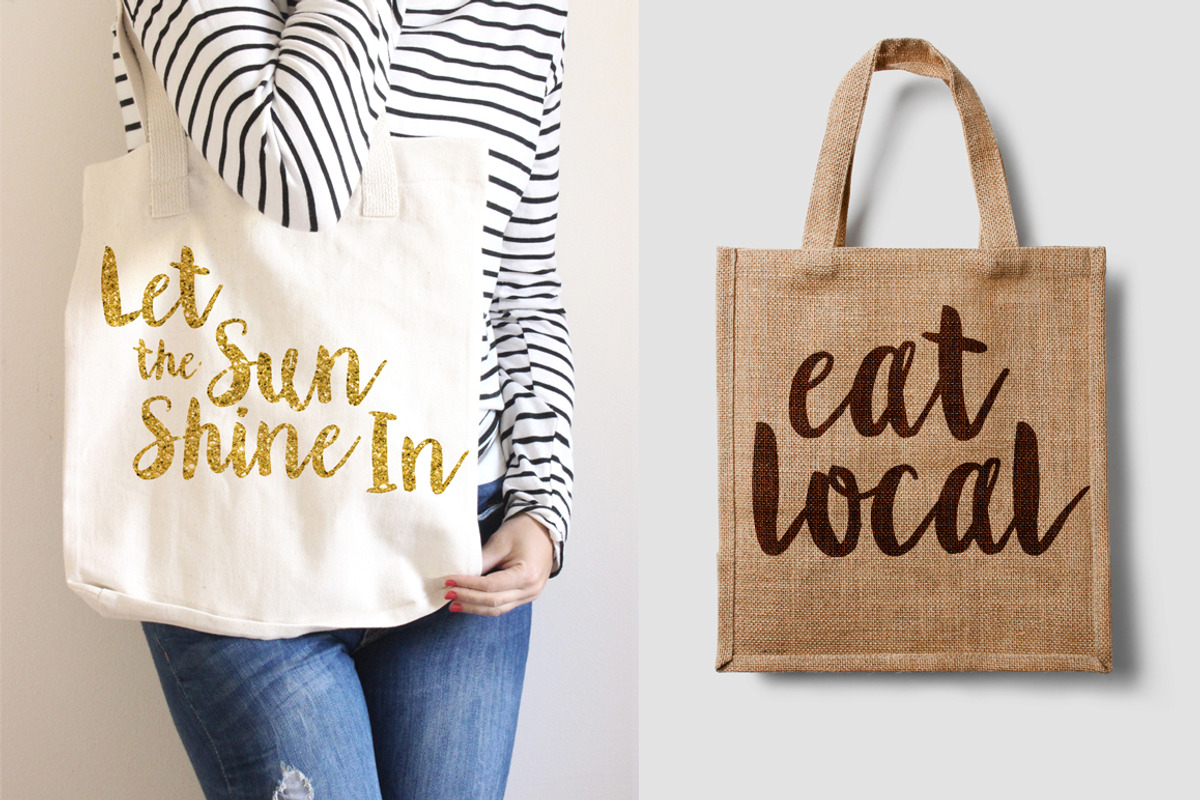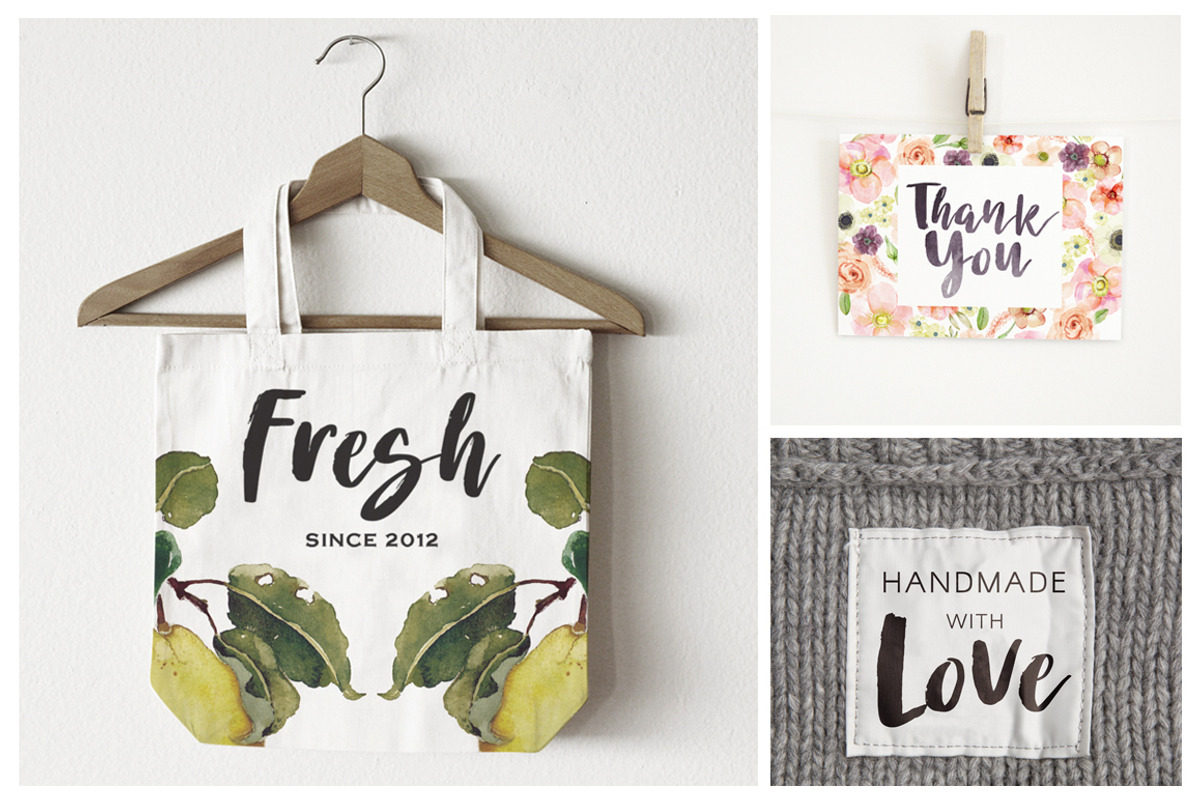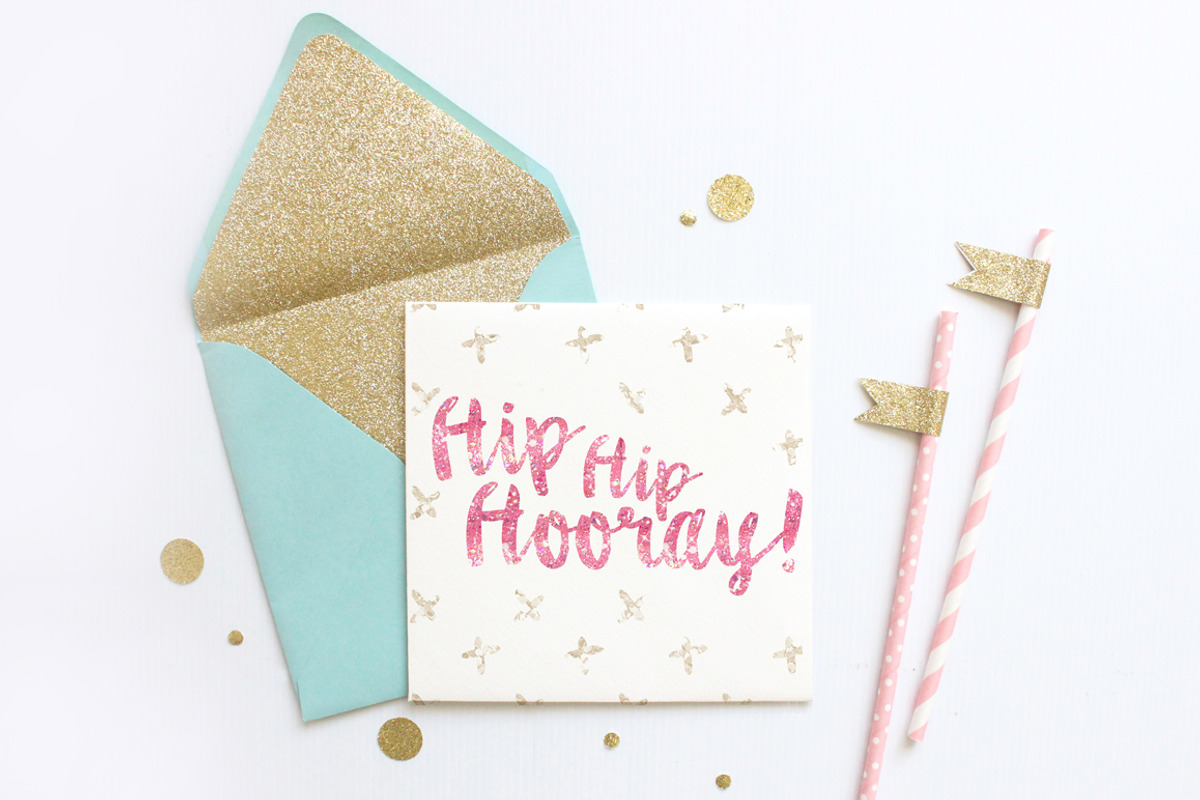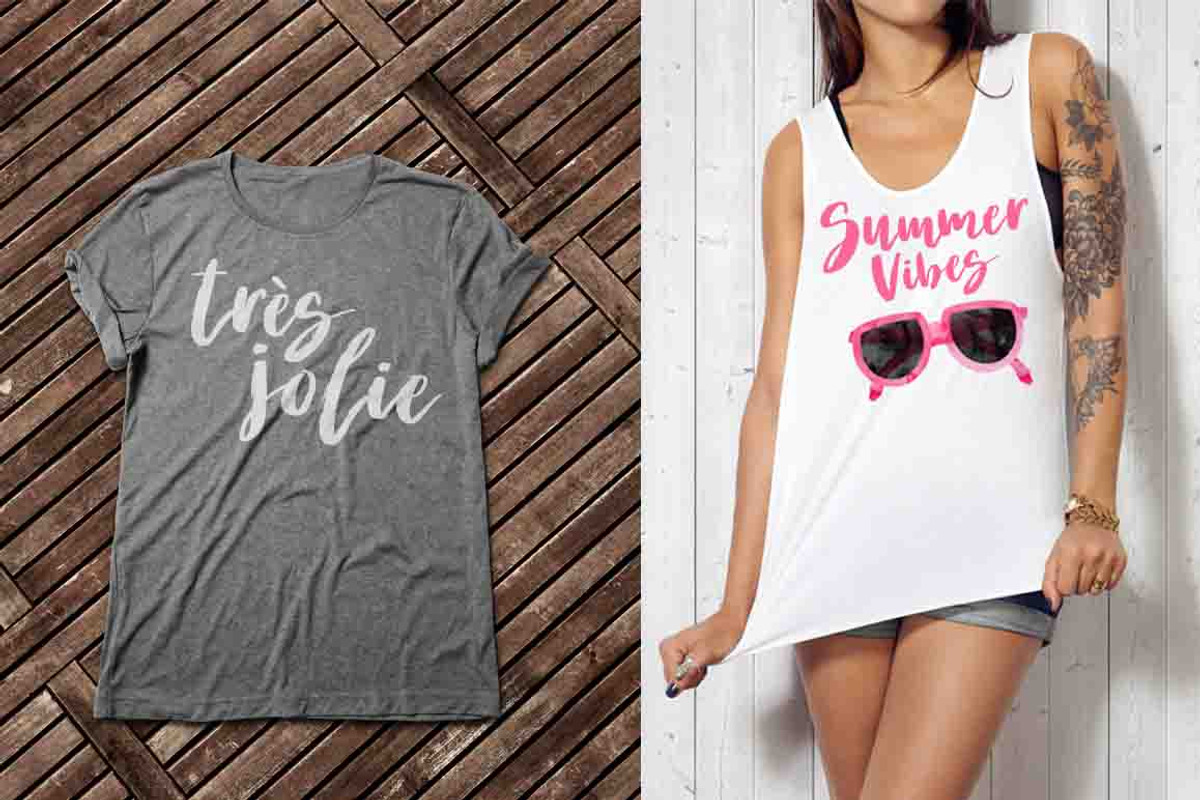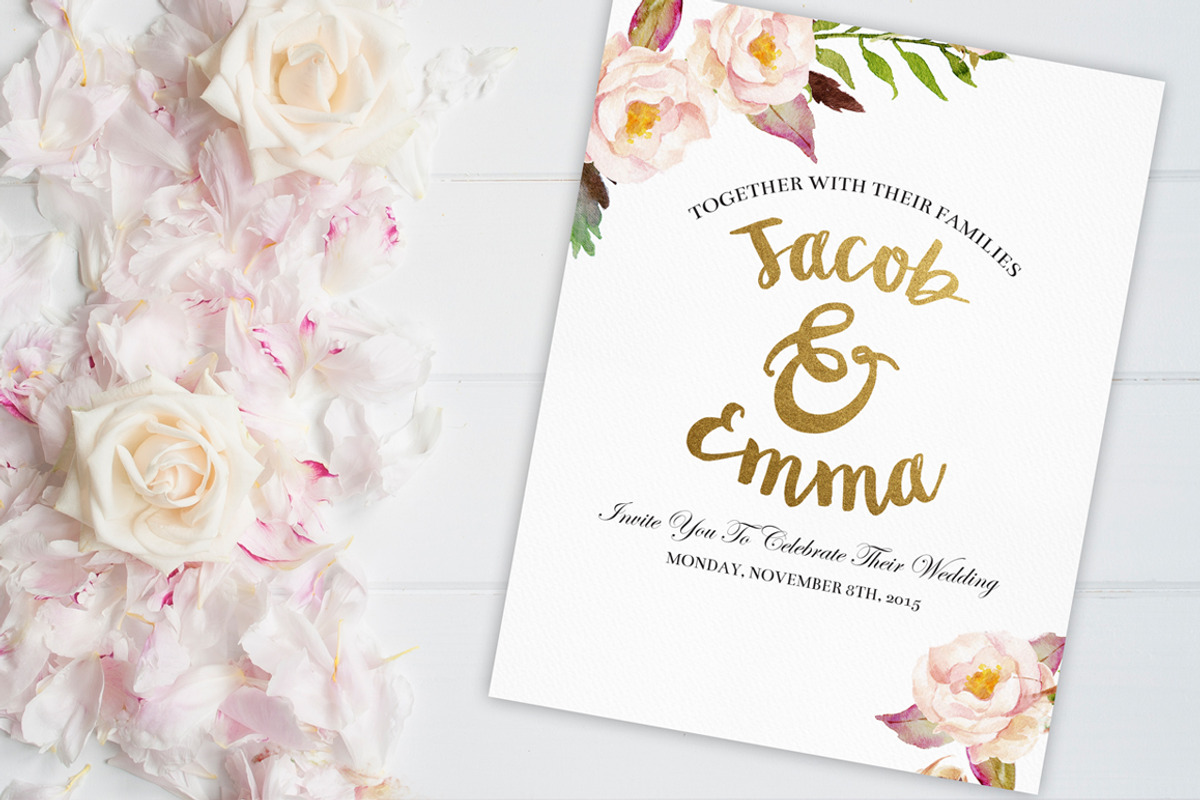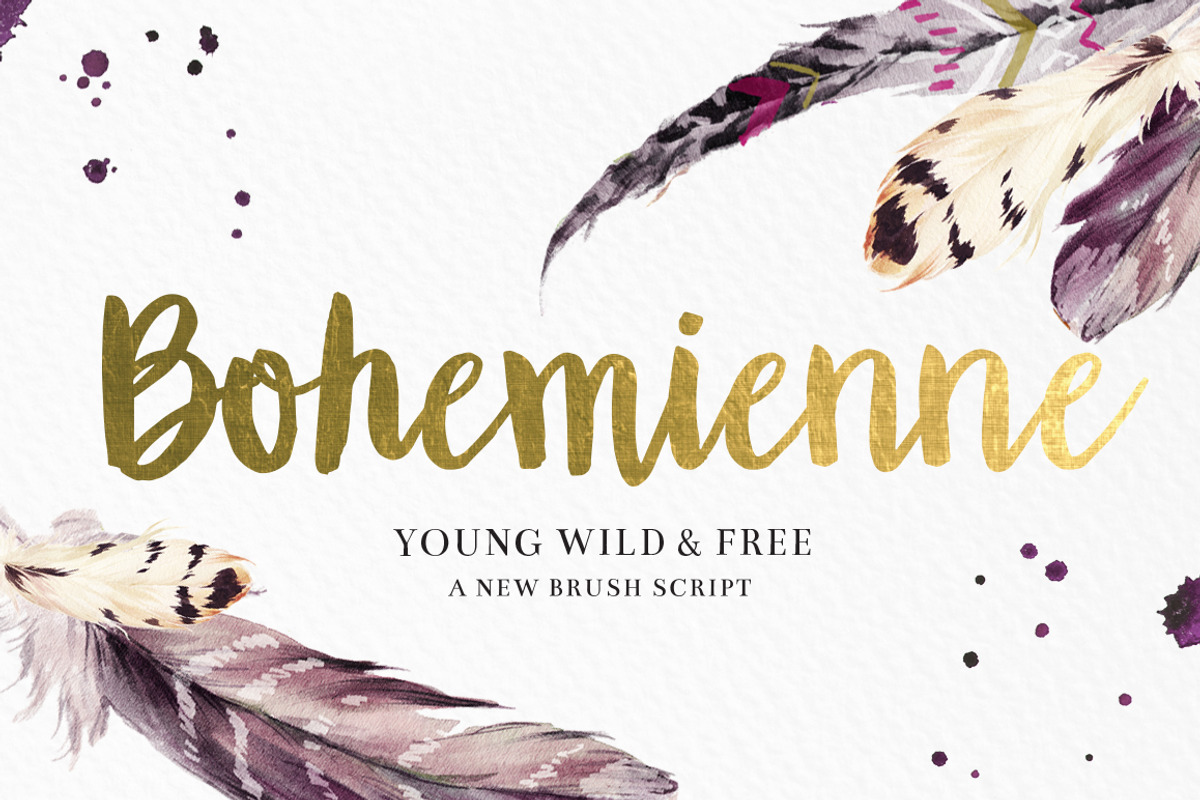
Brush Script Font Bundle
Brush Script Font Bundle by Shelly Laslo Illustration is a font selected for branding, posters, packaging, typography.
- Bohemienne Regular
- Sea Salt Regular
- Wildfox Regular
Brush Script Font Bundle by Shelly Laslo Illustration fits naturally into Branding, posters, packaging, typography.